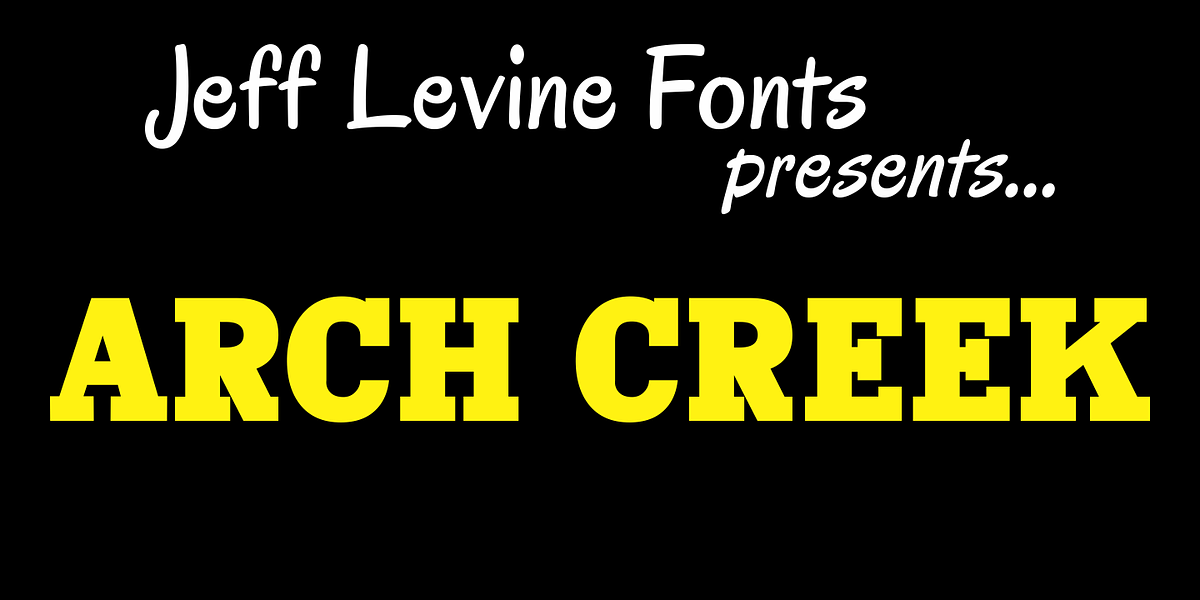
Arch Creek JNL
Arch Creek JNL is Jeff Levine’s all-caps re-interpretation of a classic typeface of the past; Beton. Clean lines and slab serifs make this design a wonderful display face for attention-getting headlines.